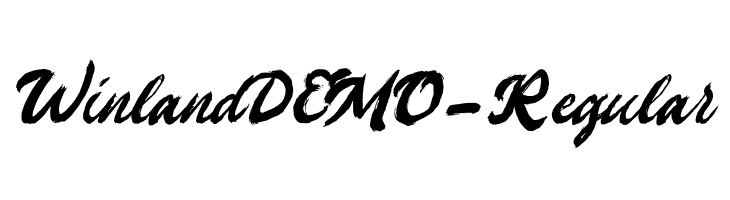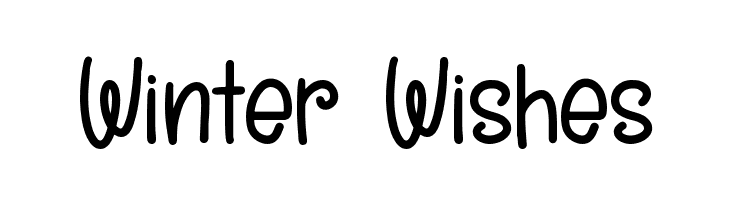
A bold, expressive brush script font with dynamic strokes and artistic flair.
A fluid and elegant script font with a modern, handwritten style.
A lively, expressive script font with bold, cursive strokes and playful loops.
A playful, handcrafted font with smooth, flowing lines and a whimsical style.
A bold, expressive script font with dynamic strokes and playful elegance.
A delicate, elegant script font with a handwritten style.
A bold, brushstroke font with an energetic and artistic style.
A whimsical, decorative font with festive hanging ornaments on each character.
A festive, decorative font with ornamented characters perfect for holiday themes.
A playful and elegant handwritten script font with medium contrast.